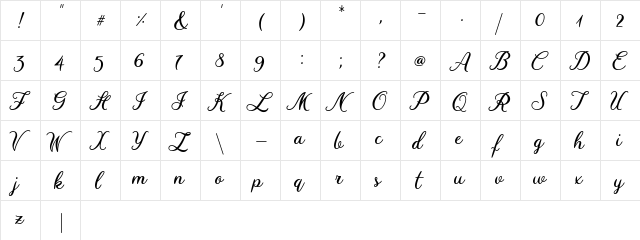
Wine Date Regular
| Designer | Bolovits Bela and Roland Huse |
Design Context for Wine Date Typeface
Wine Date is a composed and adaptable typeface that performs quietly and consistently across a wide range of design contexts.